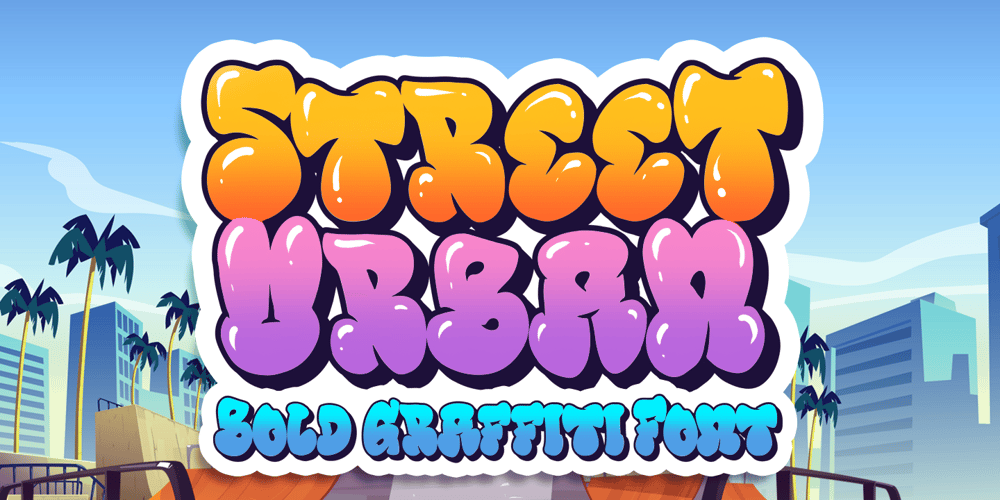
Street Urban Font Family was designed by Bangkit Tri Setiadi and published by Blankids. Street Urban contains 2 styles and family package options. Our new product the name is Street Urban Graffiti Font inspired by graffiti style with a fun theme very good for graffity poster, Hip Hop music, kids poster, flyer, children book, cartoon, comic etcMULTILINGUAL ACCENT :ØÆøæ¢ÐŒœÁĂÂÀÄĄÅÃǼĆČÇĈĊĎÉĔĚÊËĖÈĘĞĜĢĠĤÍĬÎÏİÌĮĨĴĶĹĽĻĿŃŇŅÑÓŎÔÖÒŐǾÕŔŘŖŚŠŞŜȘ ŤŢÚŬÛÜÙŰŲŮŨẂŴẄẀÝŶŸỲŹŽŻáăâäàąåãǽćčçĉċďéĕěêëėèęğĝģġĥíîïìįĩĵķĺľļŀńʼnňņñóŏôöòőǿõŕřŗśšşŝșťţ ŭûüűùųůũẃŵẅẁýŷÿỳźžżFEATURES : Uppercase Lowercase Number Punctuation Multilingual PUA Encode Opentype